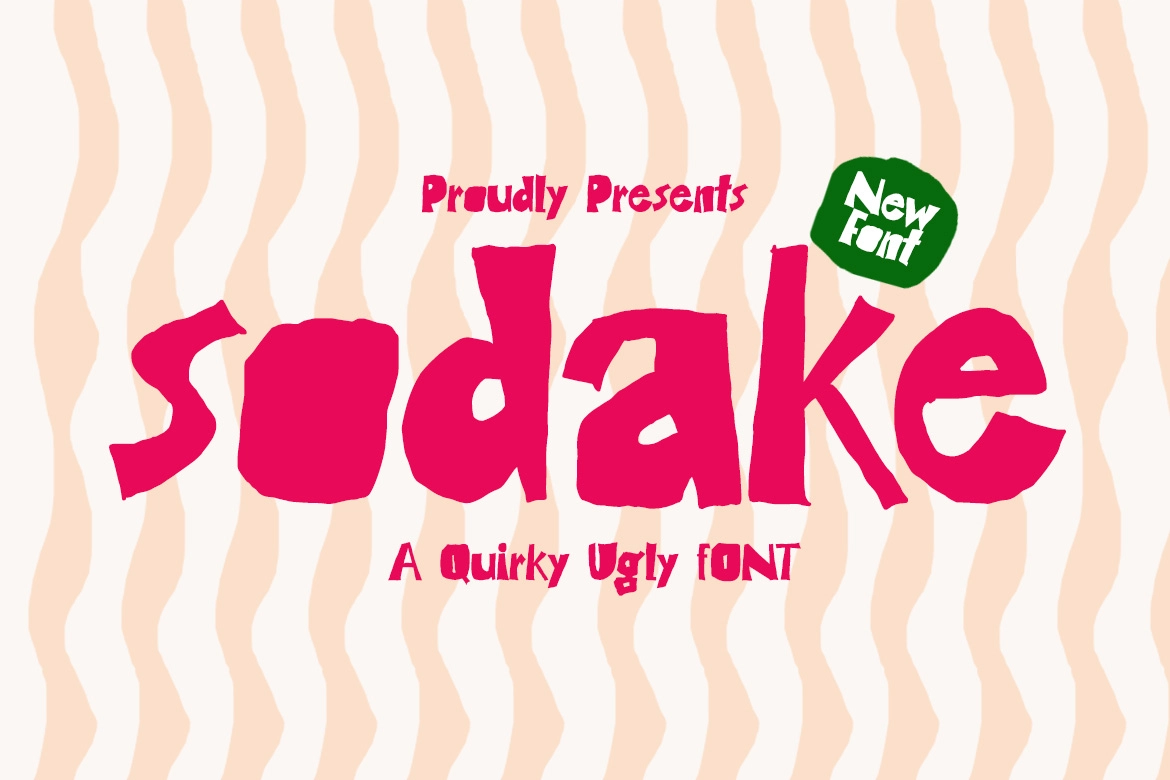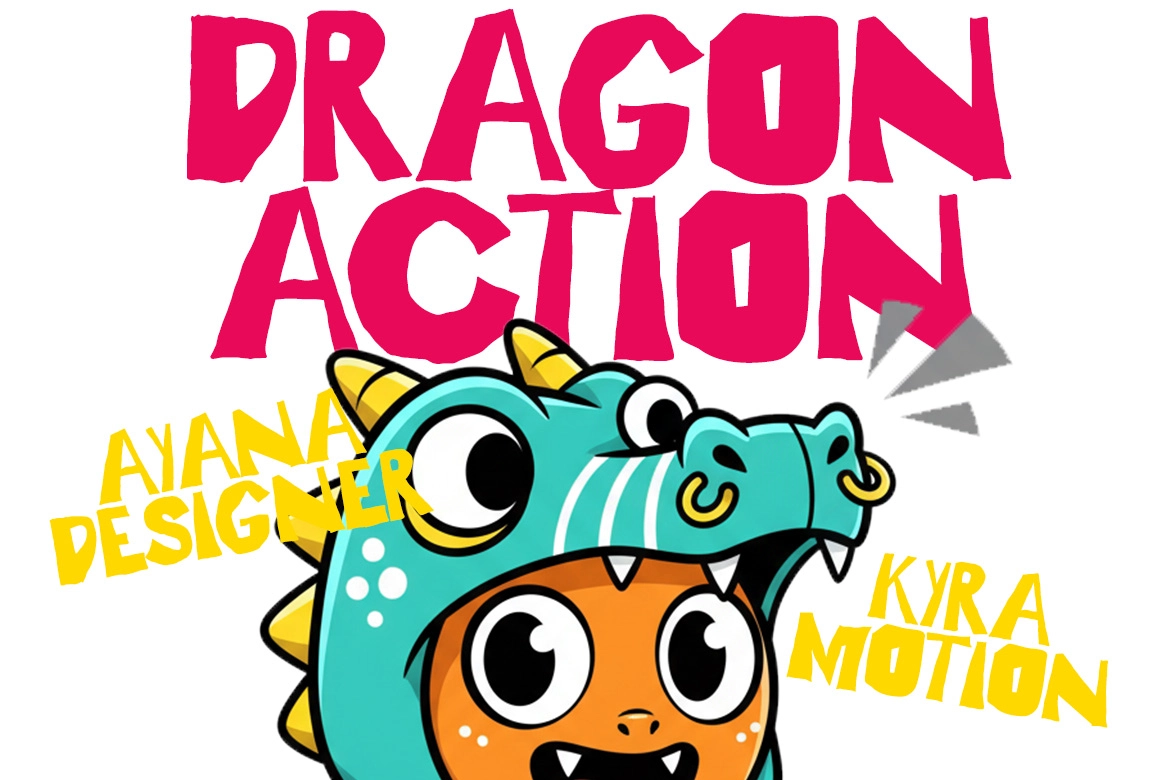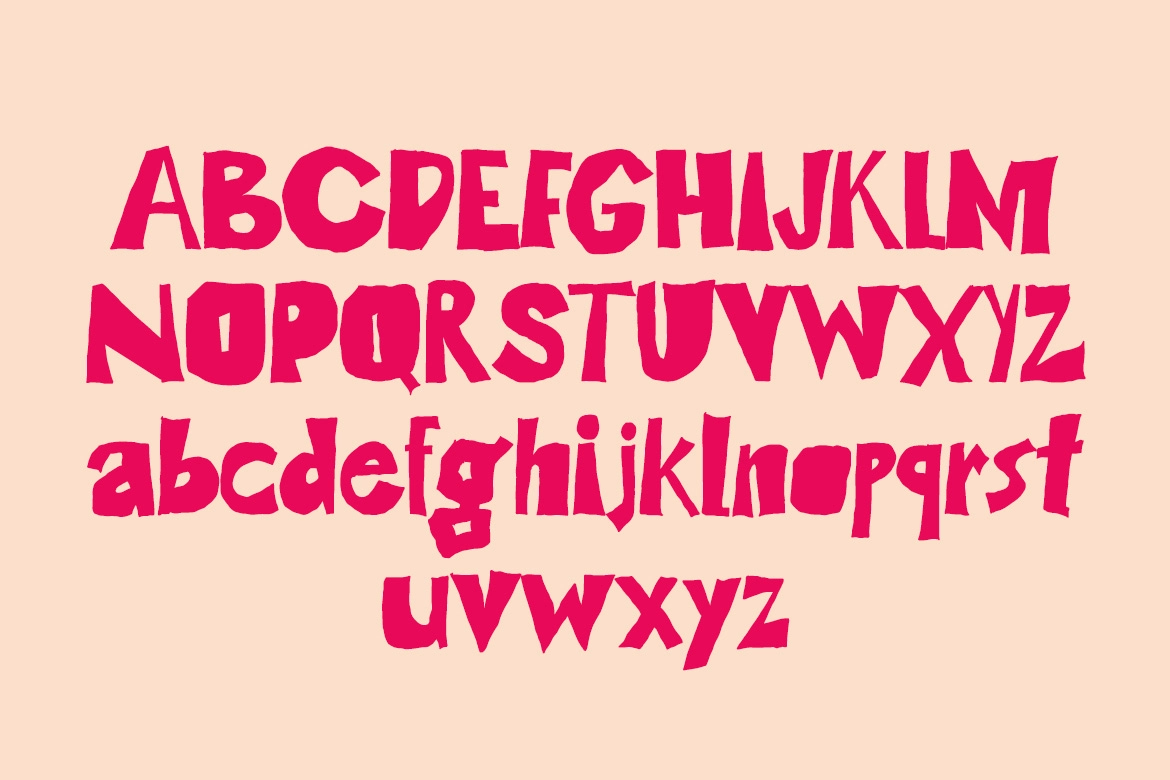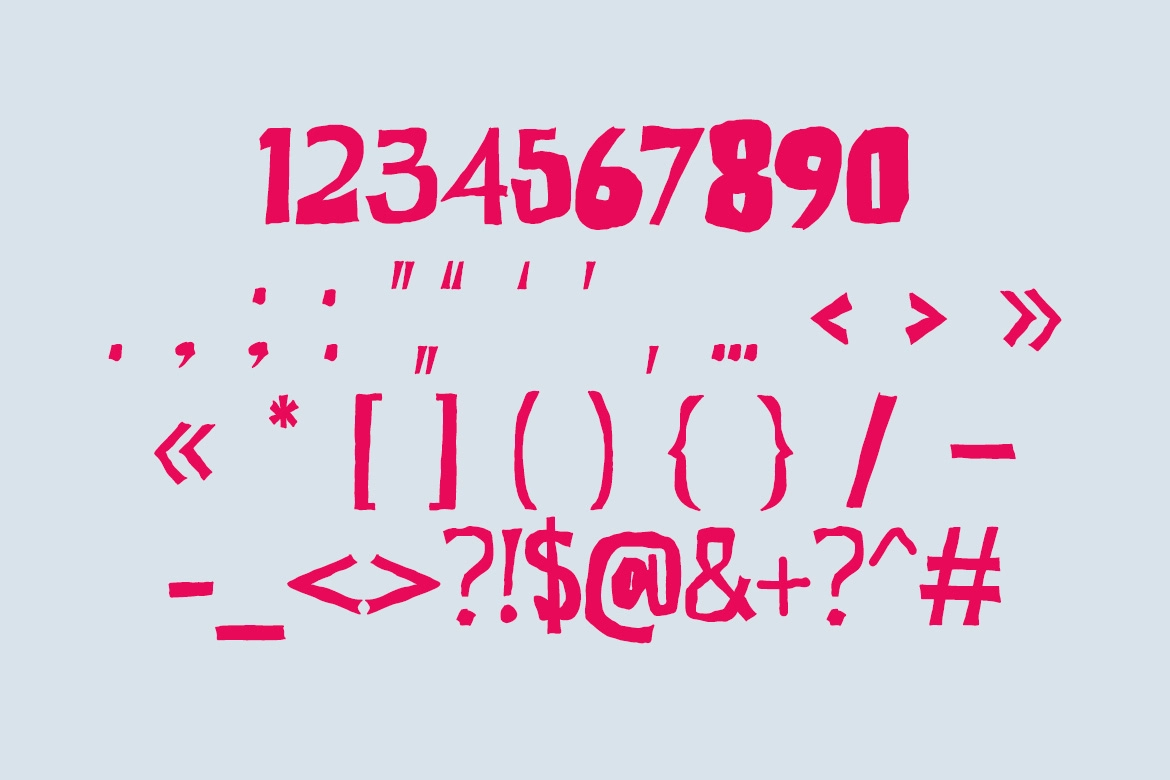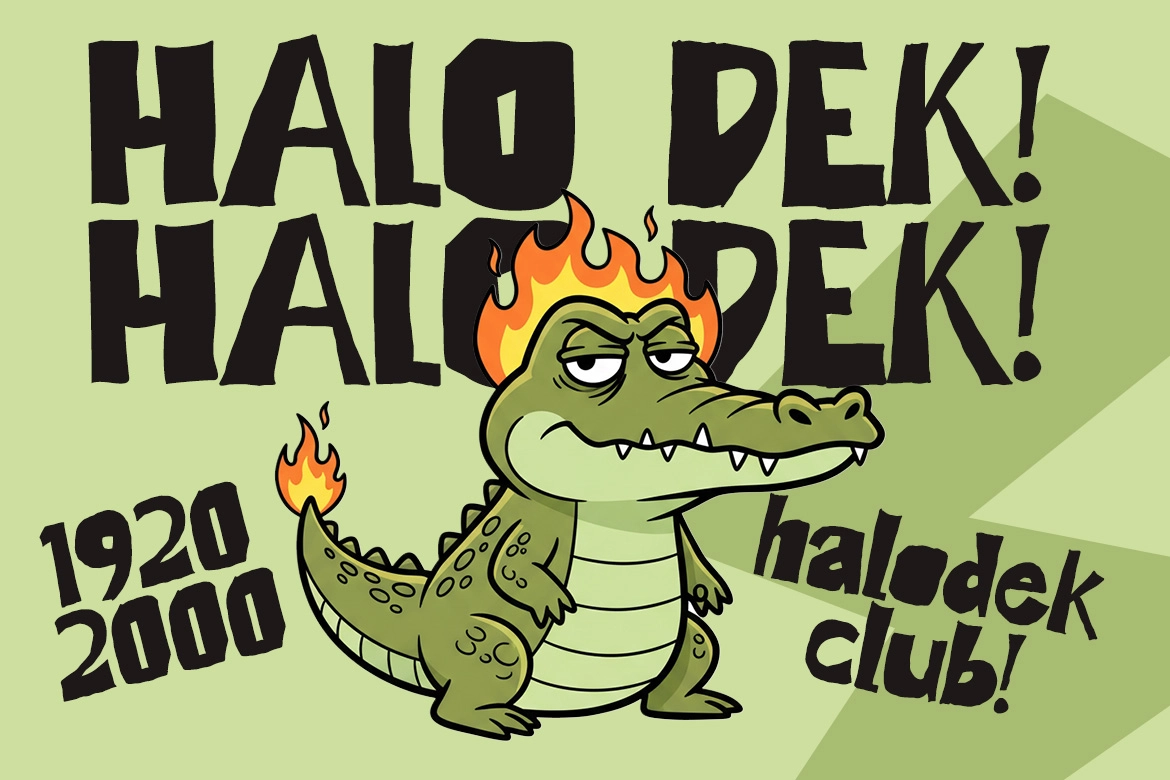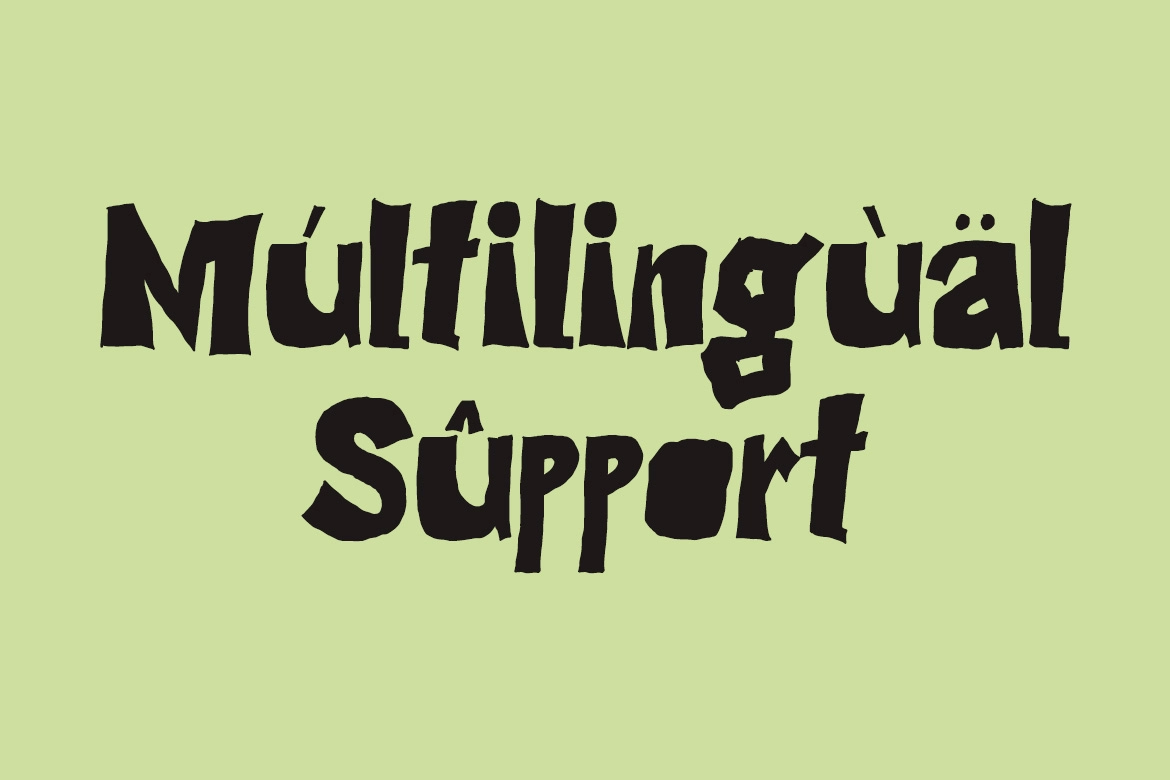
Sodake - Playful Cartoon Font
Sodake
Sodake – Playful Cartoon Font is a bold, quirky display typeface that proudly embraces its imperfect and unconventional character. With chunky, hand-drawn letterforms and irregular edges, Sodake delivers a playful, expressive look that instantly grabs attention. Its raw, handcrafted style gives every word a lively personality, making typography feel fun, spontaneous, and full of charm.
Perfect for children's designs, playful branding, posters, packaging, comics, and eye-catching headlines, Sodake brings a joyful cartoon energy to creative projects that want to stand out with humor and personality.
- Numerals & Punctuation
- Ideal for Playful Branding & Cartoon Designs
- Great for Children’s Books, Posters & Fun Headlines